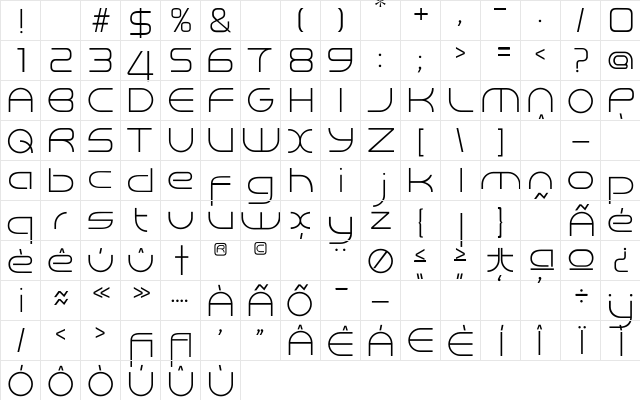
We2000 Regular
| Foundry | Tom Tor, |
| Designer | Tom Tor |
Design Context for We2000 Typeface
We2000 takes a measured approach to typography — its balanced proportions and neutral character make it a reliable workhorse for both digital and print work.